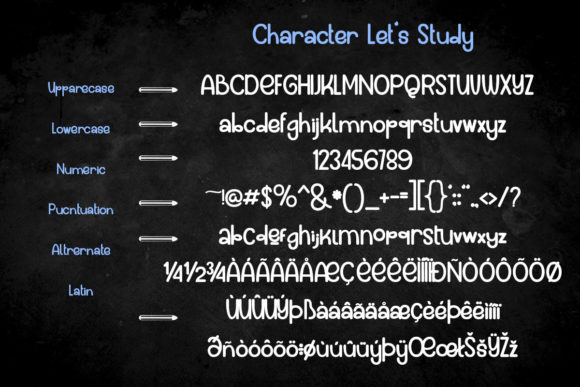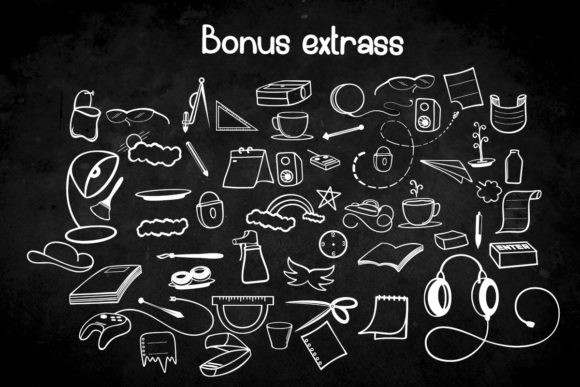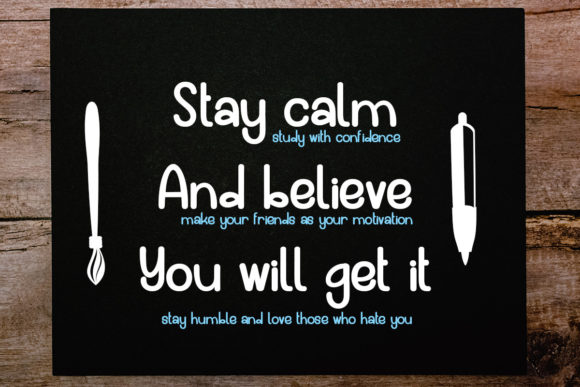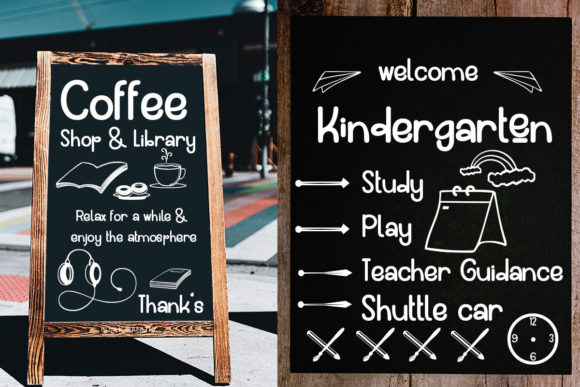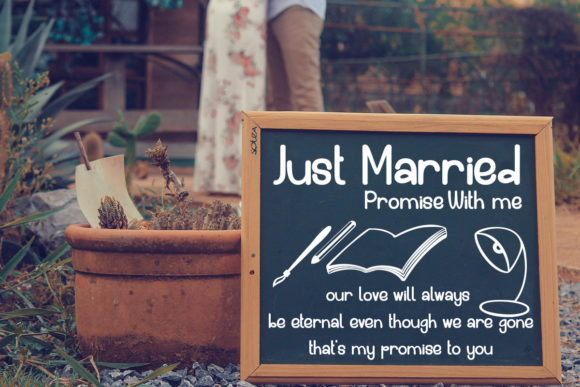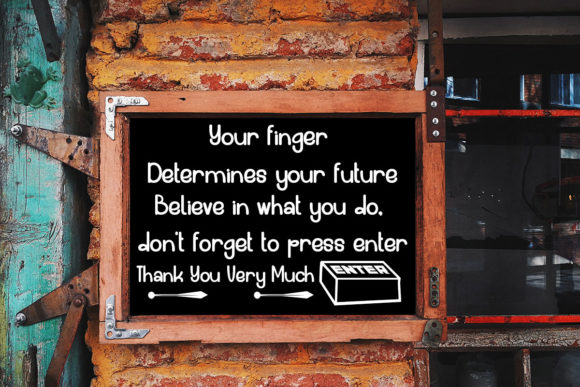
Introduction to Let’s Study Font
Do you remember the thrill of creating a visually appealing poster for a school project or designing a social media campaign to promote your favorite book? For many of us, the creative process is a moment of pure joy, and the right font can make all the difference. That’s where Let’s Study Font comes in – a beautiful, handcrafted sans serif font paired with a lovely dingbats typeface that adds an extra artistic touch to your designs.
Whether you’re a seasoned designer or just starting out, Let’s Study Font is a valuable resource that can elevate your creative projects. With its transparent background and high-quality design, you can use it for a wide range of applications, from posters and magazines to social media and storybooks. And the best part? It’s available for free download, making it an accessible design resource for anyone looking to add a creative touch to their work.
- High-quality font design, perfect for creative projects and design resources
- Unique, hand-drawn design elements that add a personal touch to any creative project
Honest Review: Let’s Study Font
As a designer, I’m always on the lookout for high-quality design resources to elevate my creative projects. Let’s Study Font caught my eye, and I decided to give it a try.
- ✨ High-quality font with a clean and modern aesthetic
- ✨ Transparent background, making it easy to use on any design project
- ⚠️ Limited character set, which may not be suitable for complex designs
- ⚠️ Not as versatile as some other fonts, making it less suitable for certain design projects
Overall, I was impressed with Let’s Study Font’s high quality and clean design. While it may not be the most versatile font, it’s still a great addition to any designer’s toolkit. If you’re working on a simple design project, Let’s Study Font is definitely worth considering.
Introduction to Let’s Study Font
Let’s Study Font is a high-quality, unique design resource perfect for creative projects. It offers a transparent background, making it easy to use in various applications.
Common Use Cases for Let’s Study Font
Let’s Study Font is ideal for various creative projects, including:
- Graphic design for social media and websites.
- Print materials, such as business cards and brochures.
- Presentations and documents.